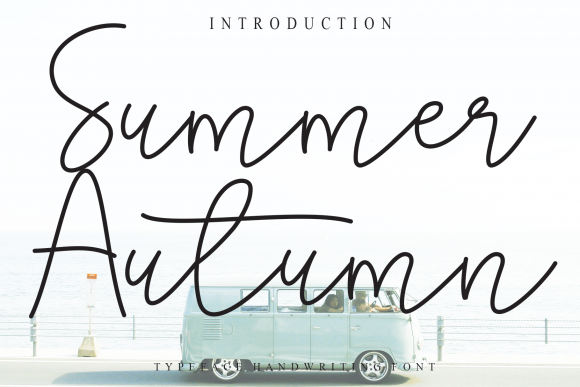
Dive into the world of Summer Autumn Font, a script font that embodies the essence of warmth, romance, and joy. Crafted by the visionary Roronoa zoro.S.P.D, this font is a versatile masterpiece that adapts effortlessly to any creative project, transforming your ideas into stunning works of art.
Summer Autumn Font is not just a collection of characters; it's an experience. Its smooth, flowing lines evoke the elegance of a handwritten note, injecting a personal touch into your digital designs. Each letter is meticulously crafted to exude a sense of warmth and friendliness, making your messages resonate with your audience on a deeper level.
Explore the endless variations of Summer Autumn Font and let your creativity soar. Experiment with different sizes, colors, and combinations to create designs that captivate and inspire. Its versatility knows no bounds, making it the perfect choice for logos, branding, invitations, social media posts, and any project that demands a touch of charm and sophistication.
With Summer Autumn Font, you'll discover a new level of creative expression. Its user-friendly design makes it accessible to designers of all levels, empowering you to create designs that leave a lasting impression. Join the growing community of designers who have embraced Summer Autumn Font and witnessed the transformation of their creative visions into captivating realities.
Embrace the beauty of Summer Autumn Font and embark on a design journey that's filled with warmth, romance, and endless possibilities. Experience the joy of creating designs that resonate with your audience, leaving them with a lasting impression that lingers long after they've closed their screens.